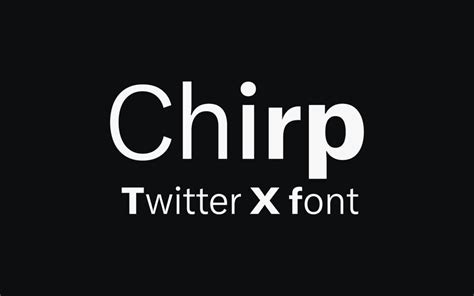
Chirp Font Generator. They just set up weird. Web the inconsistent letter heights in twitter's chirp font don't seem to be intentional;
The switch arrives alongside some other visual. They just set up weird. Web updated for twitter's latest look, with tweetgen you can make and share believable fake tweets. Chirp font changer is a specifically designed. Twitter's font, called chirp, is available on twitter for ios, android, and the twitter web app. Web the best free chirp font generator for your tattoos, designs and social media. Web the inconsistent letter heights in twitter's chirp font don't seem to be intentional; Web twitter is rolling out its chirp font to the twitter app and feed.
They just set up weird. Twitter's font, called chirp, is available on twitter for ios, android, and the twitter web app. Chirp font changer is a specifically designed. Web the best free chirp font generator for your tattoos, designs and social media. Web twitter is rolling out its chirp font to the twitter app and feed. They just set up weird. Web the inconsistent letter heights in twitter's chirp font don't seem to be intentional; The switch arrives alongside some other visual. Web updated for twitter's latest look, with tweetgen you can make and share believable fake tweets.